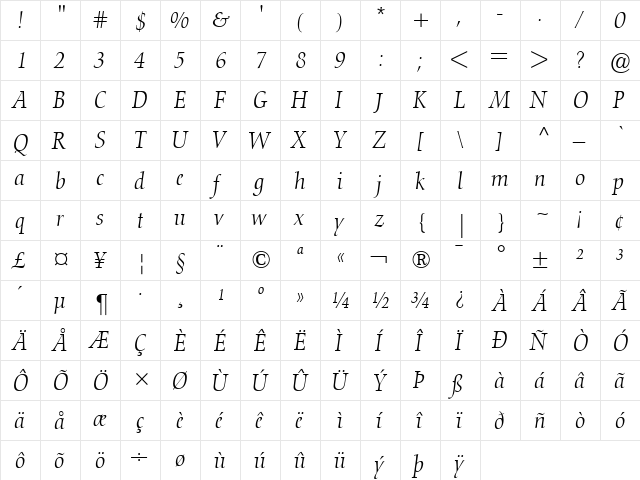
Nofret Italic
Design Context for Nofret Typeface
Nofret is a composed and adaptable typeface that performs quietly and consistently across a wide range of design contexts. Its italic angle brings a sense of urgency and motion to the letterforms.
Pro Tip: Use Nofret for emphasis, pull quotes, and subheadings where its slanted energy can add rhythm to the layout.